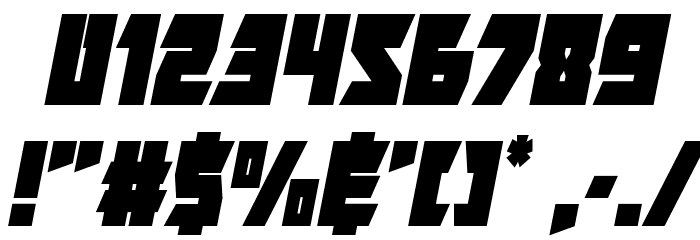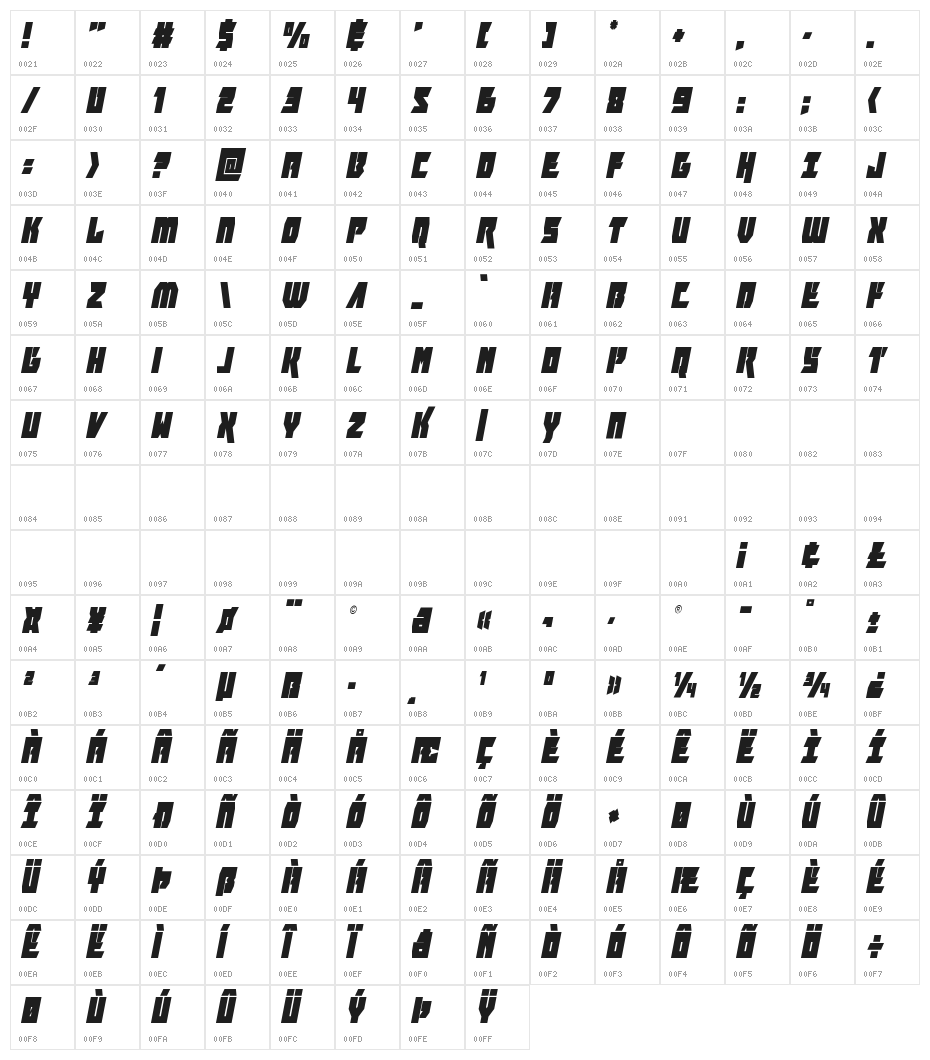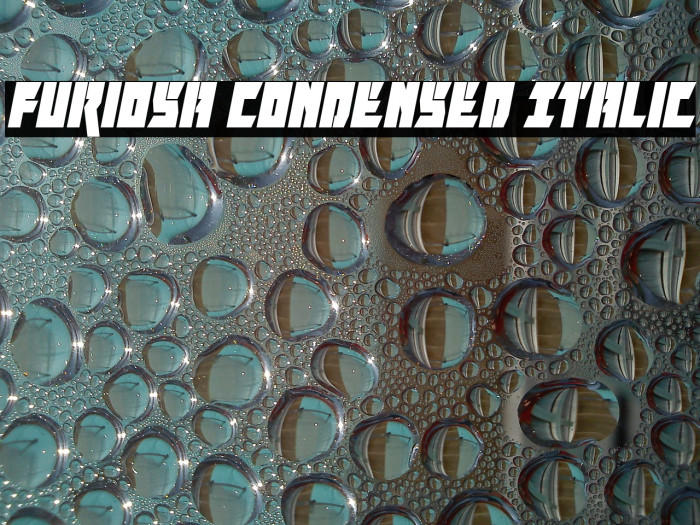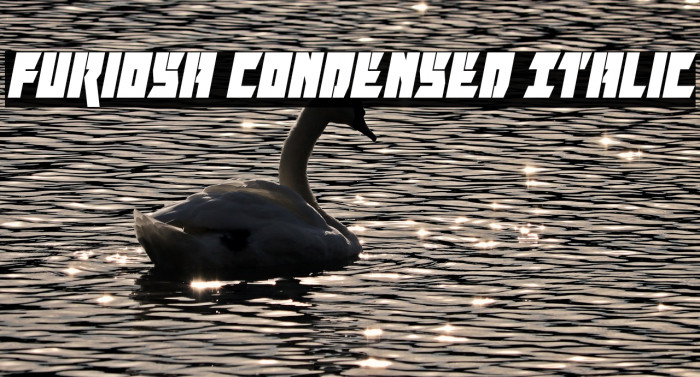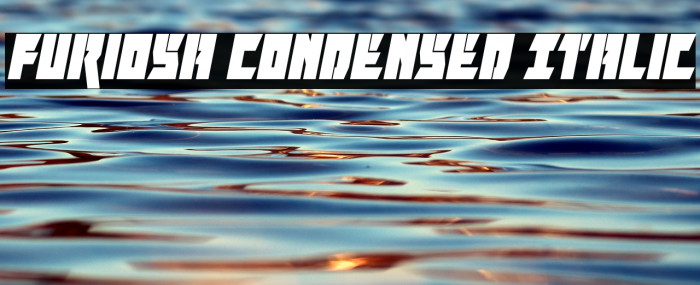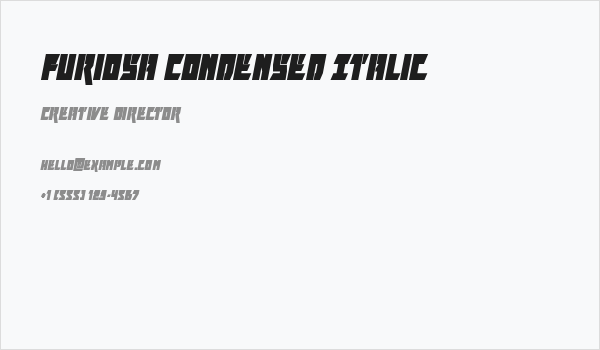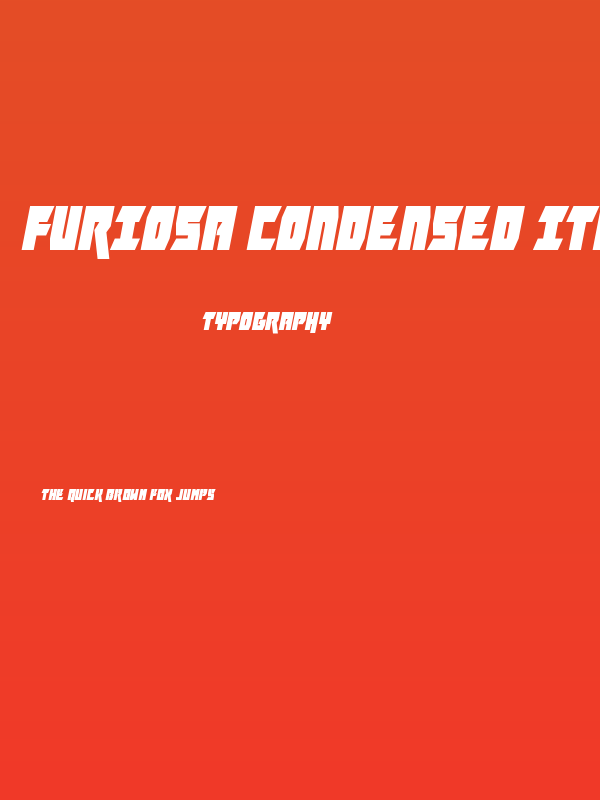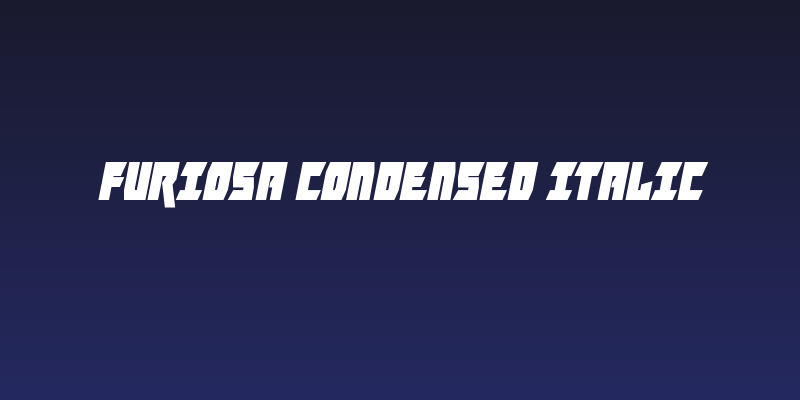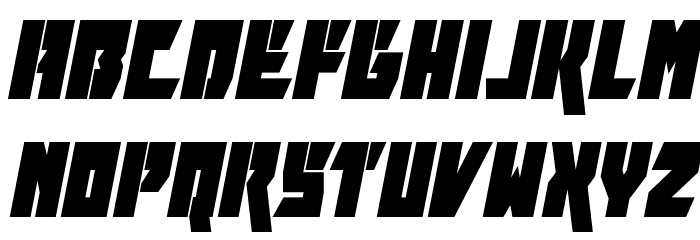
Furiosa Condensed Italic Font
Furiosa Condensed Italic Description
This font features a bold, angular design with a distinctly modern and aggressive aesthetic. The characters are condensed and italicized, giving them a dynamic, forward-leaning appearance. The sharp edges and geometric shapes create a sense of movement and urgency. The uppercase and lowercase letters maintain a consistent style, with the lowercase slightly smaller but equally bold. Numbers and special characters follow the same design principles, ensuring uniformity across all glyphs. The font's strong visual impact makes it ideal for attention-grabbing designs.
| Proposed Projects | Ideal for use in posters, video game graphics, sports branding, and any project requiring a strong, dynamic visual impact. |